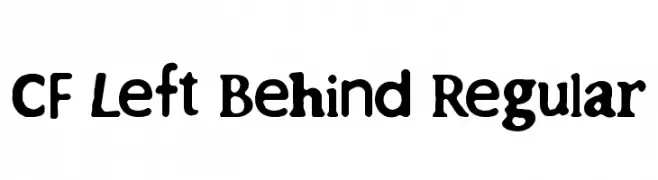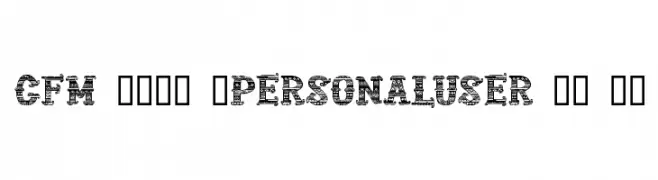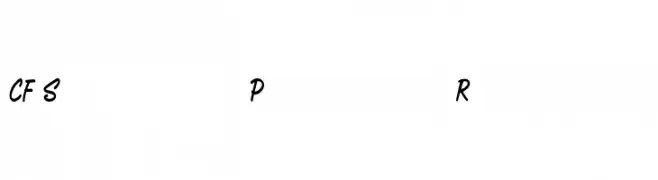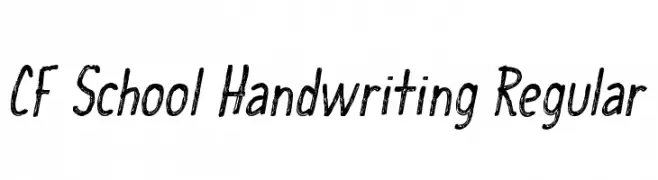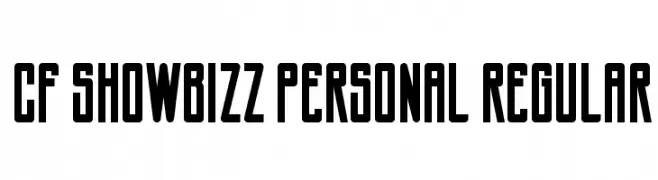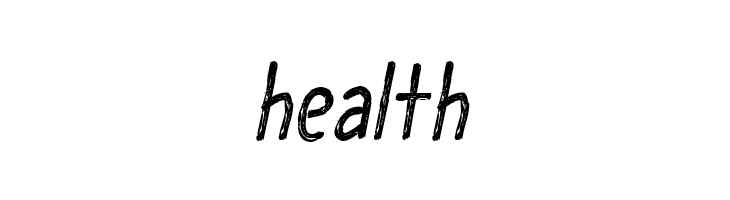
( CloutierFontes - Steve Cloutier - www.cloutierfontes.ca/ )
A bold, playful font with a hand-drawn, artistic style.
( CloutierFontes - Steve Cloutier - www.cloutierfontes.ca/ )
A decorative font with intricate, tribal-inspired patterns in each character.
( CloutierFontes - Steve Cloutier - www.cloutierfontes.ca/ )
A bold, dripping font perfect for horror-themed designs.
( CloutierFontes - Steve Cloutier - www.cloutierfontes.ca/ )
A bold, textured font with a distressed, handcrafted appearance.
( CloutierFontes - Steve Cloutier - www.cloutierfontes.ca/ )
A bold, industrial font with punk and cyborg influences.
( CloutierFontes - Steve Cloutier - www.cloutierfontes.ca/ )
A vintage, typewriter-inspired serif font with bold, irregular strokes.
( CloutierFontes - Steve Cloutier - www.cloutierfontes.ca/ )
A playful, handwritten font with smooth curves and a dynamic style.
( CloutierFontes - Steve Cloutier - www.cloutierfontes.ca/ )
An ornate and decorative script font with elegant, flowing lines and intricate swashes.
( CloutierFontes - Steve Cloutier - www.cloutierfontes.ca/ )
A playful, casual handwritten font with a school-like, dynamic feel.
( CloutierFontes - Steve Cloutier - www.cloutierfontes.ca/ )
A bold, narrow font with tall characters and tight spacing, perfect for modern designs.